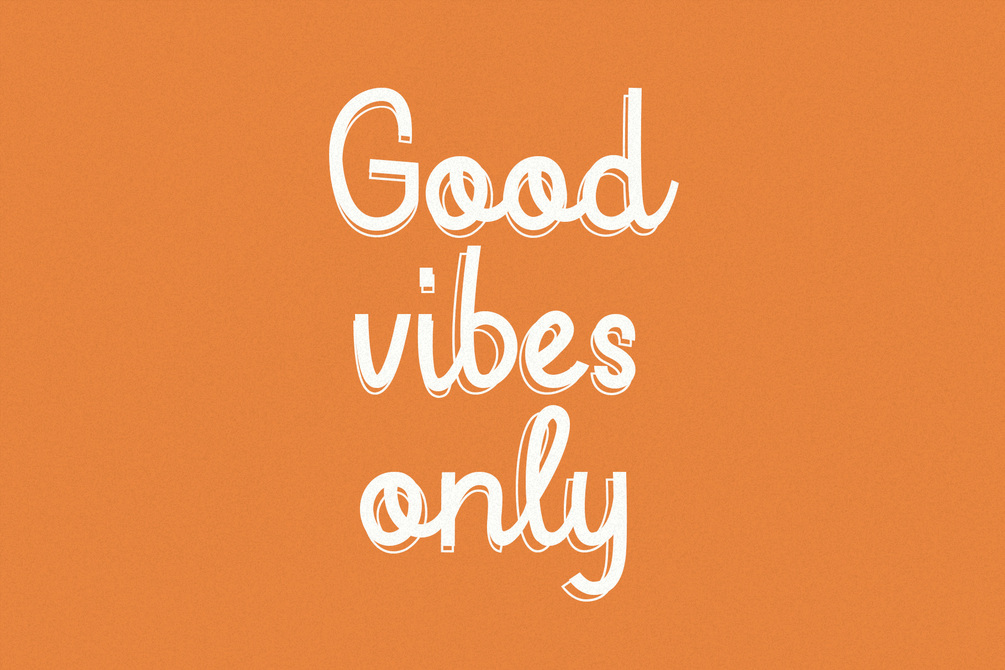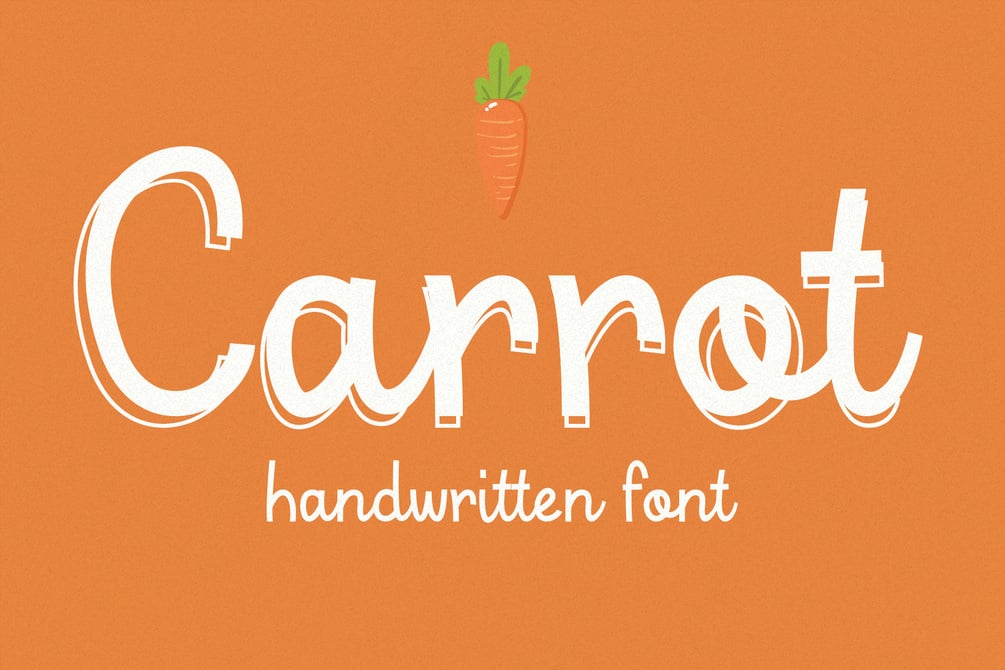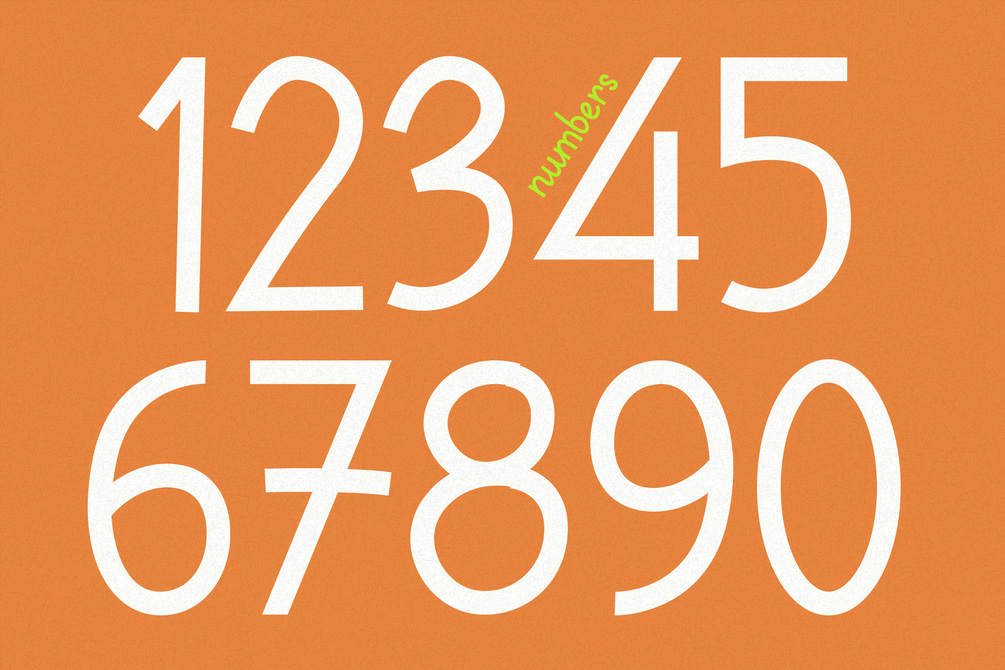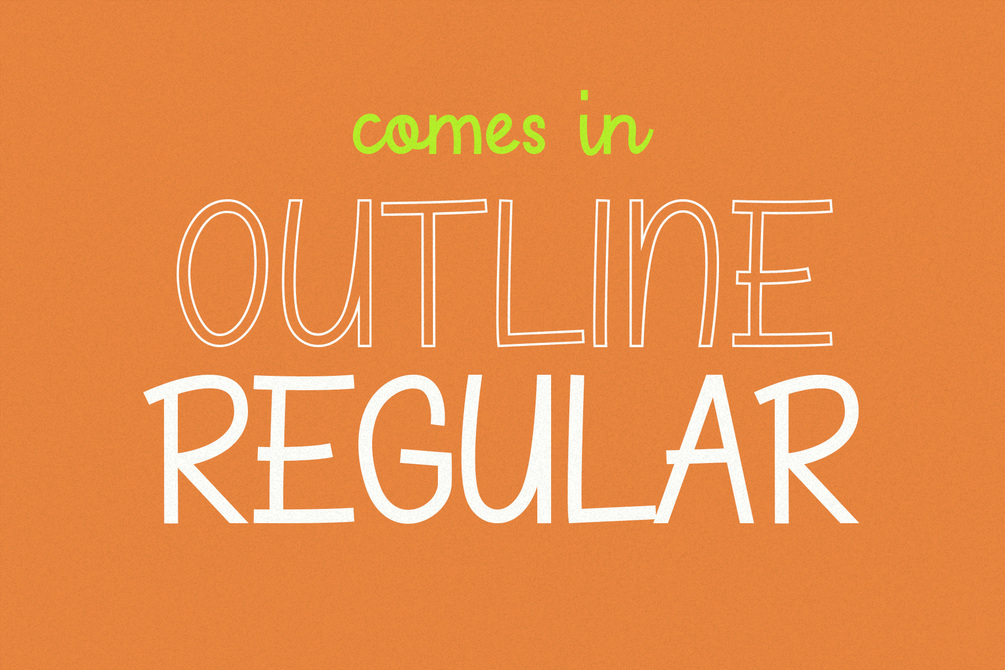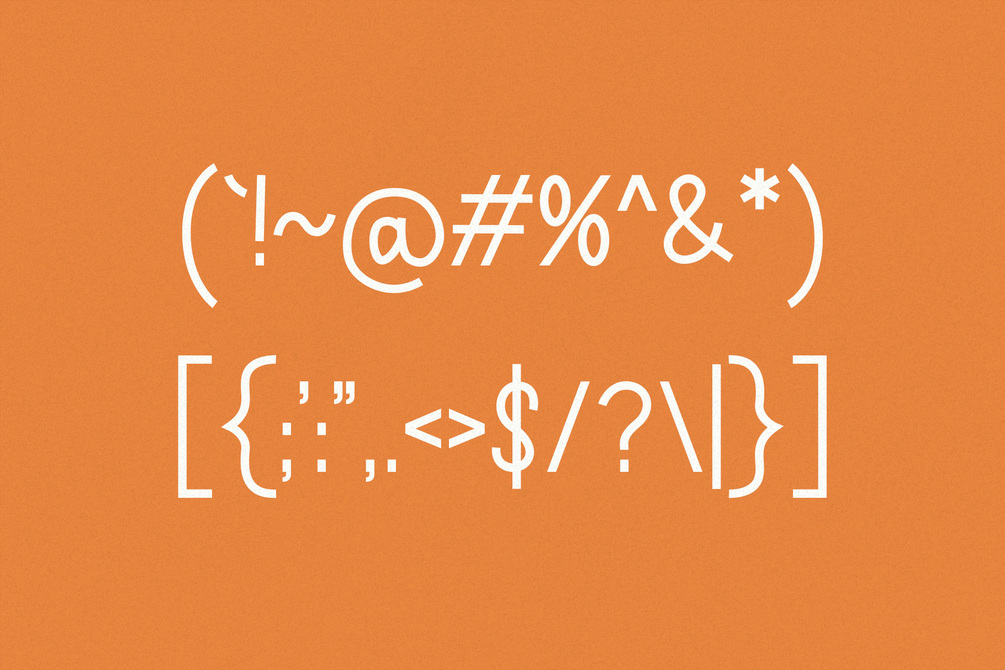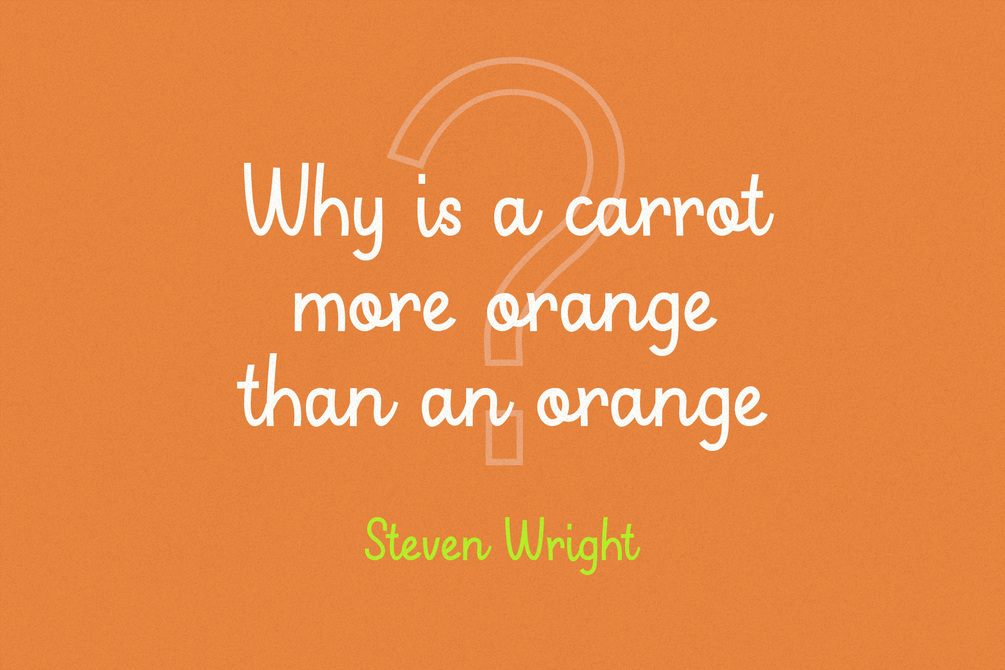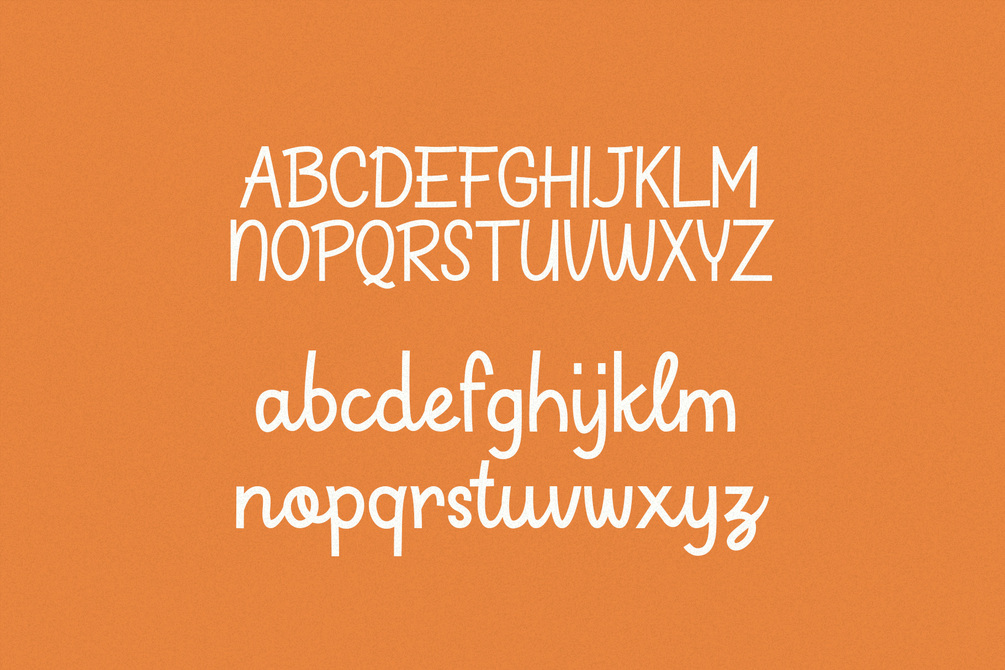
Carrot - Handwritten Font
Carrot is an adorable handwritten font that comes in two flavors, outline and regular. Thanks to it's playful and organic feel, Carrot is perfect for children books, branding, web design, greeting cards, posters or anything that requires a friendly vibe.